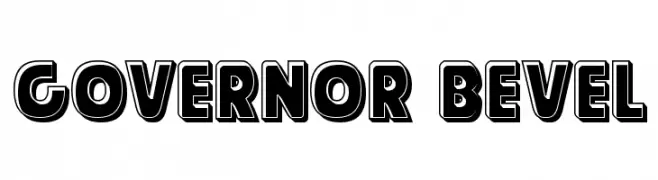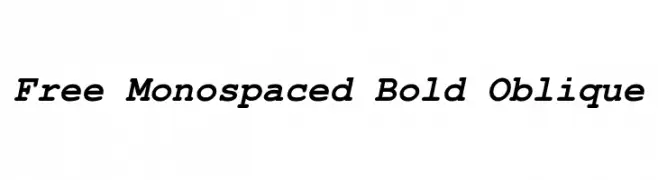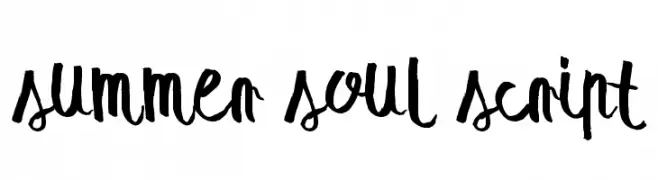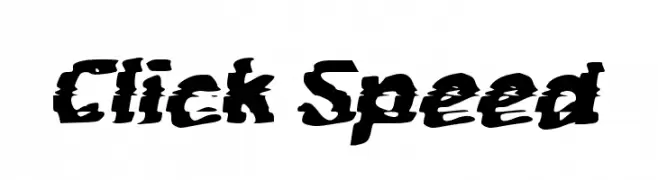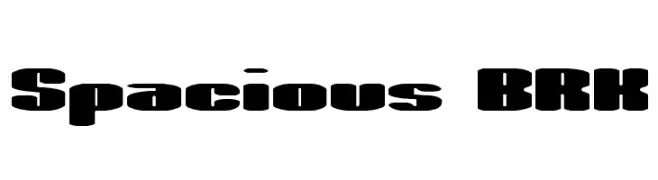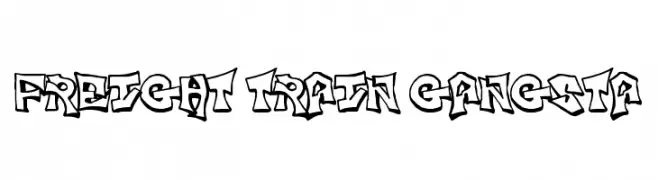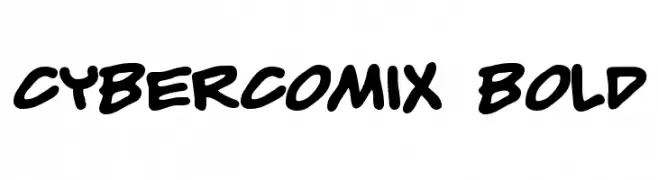
A bold serif font with high contrast and elegant serifs, perfect for impactful headlines.
A playful, hand-drawn font with a sketchy, artistic style.
A bold, three-dimensional font with a beveled edge and shadow effect.
A bold, oblique monospaced font with a modern and dynamic style.
No valid font glyphs are visible; only placeholder boxes are shown.
A bold, hand-drawn script font with a lively and informal style.
A bold, dynamic font with a distressed, glitch-like appearance.
A bold, modern font with a blocky, rounded design.
A bold, graffiti-style font with angular, dynamic shapes.
A bold, comic-inspired font with rounded strokes and playful style.